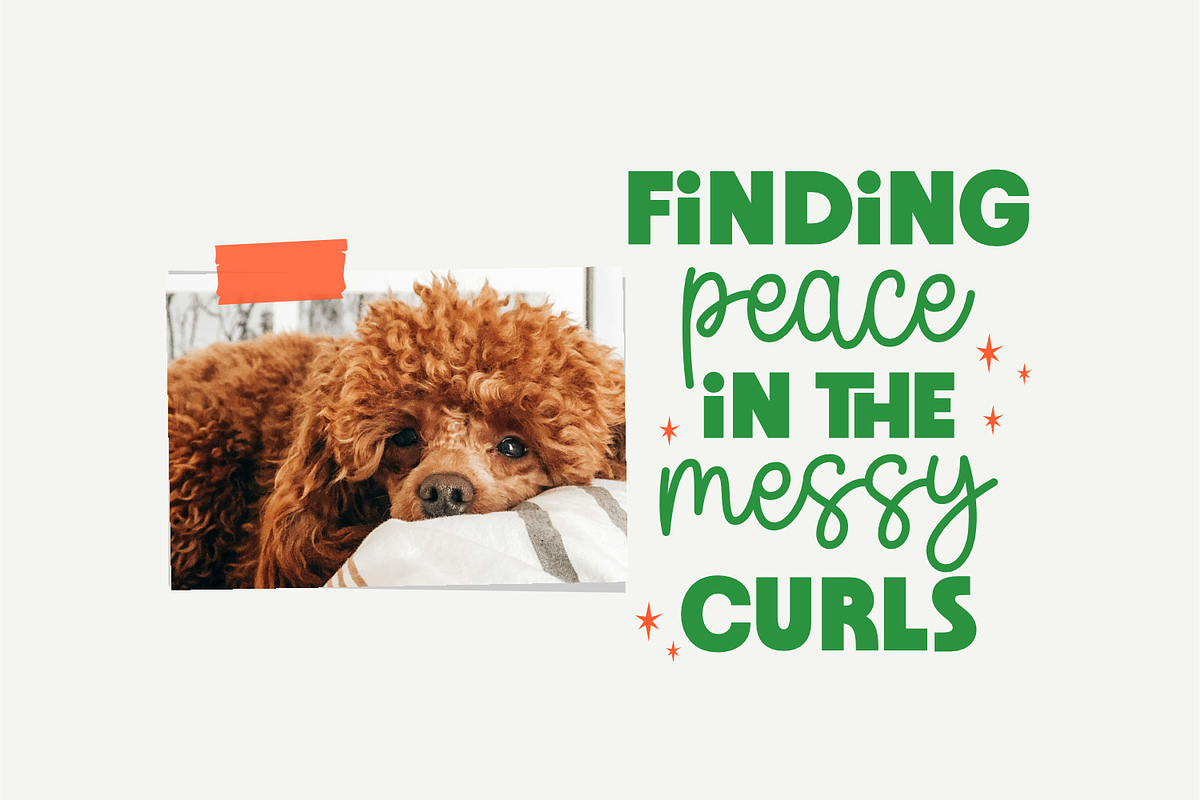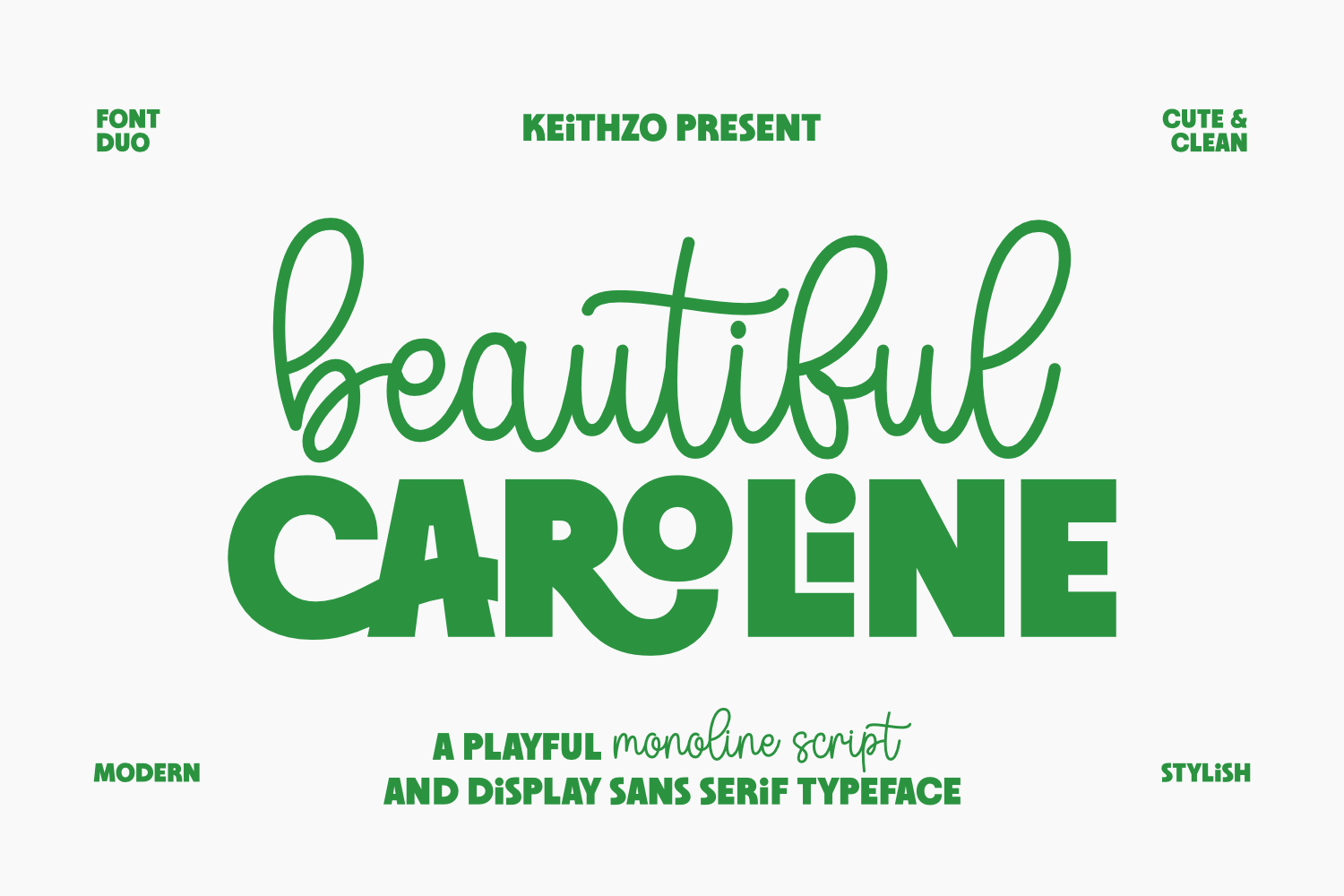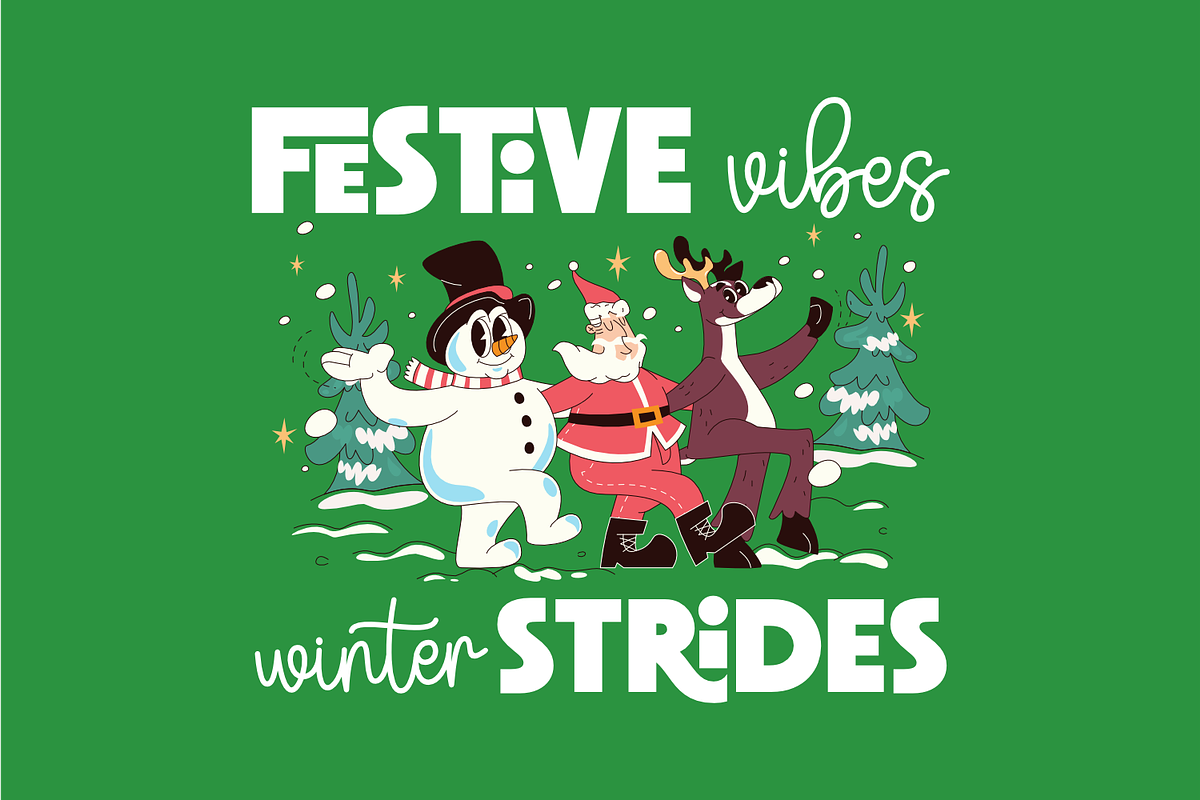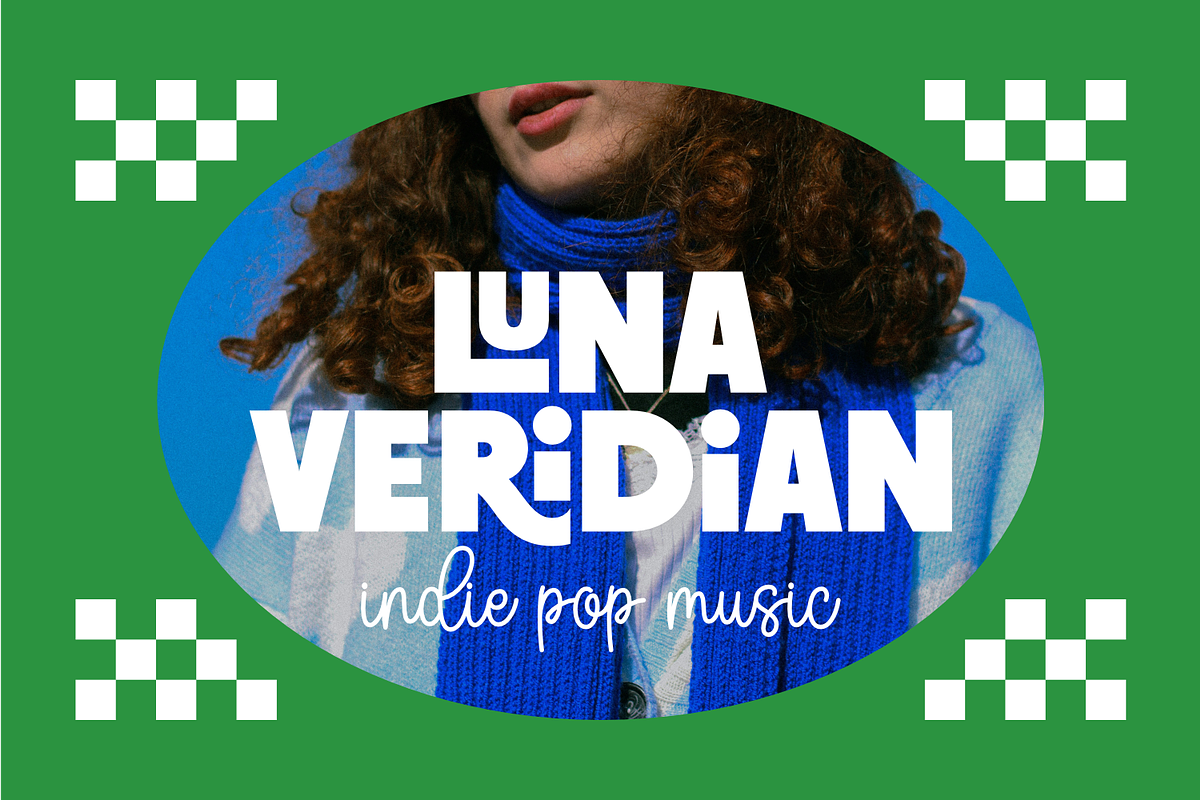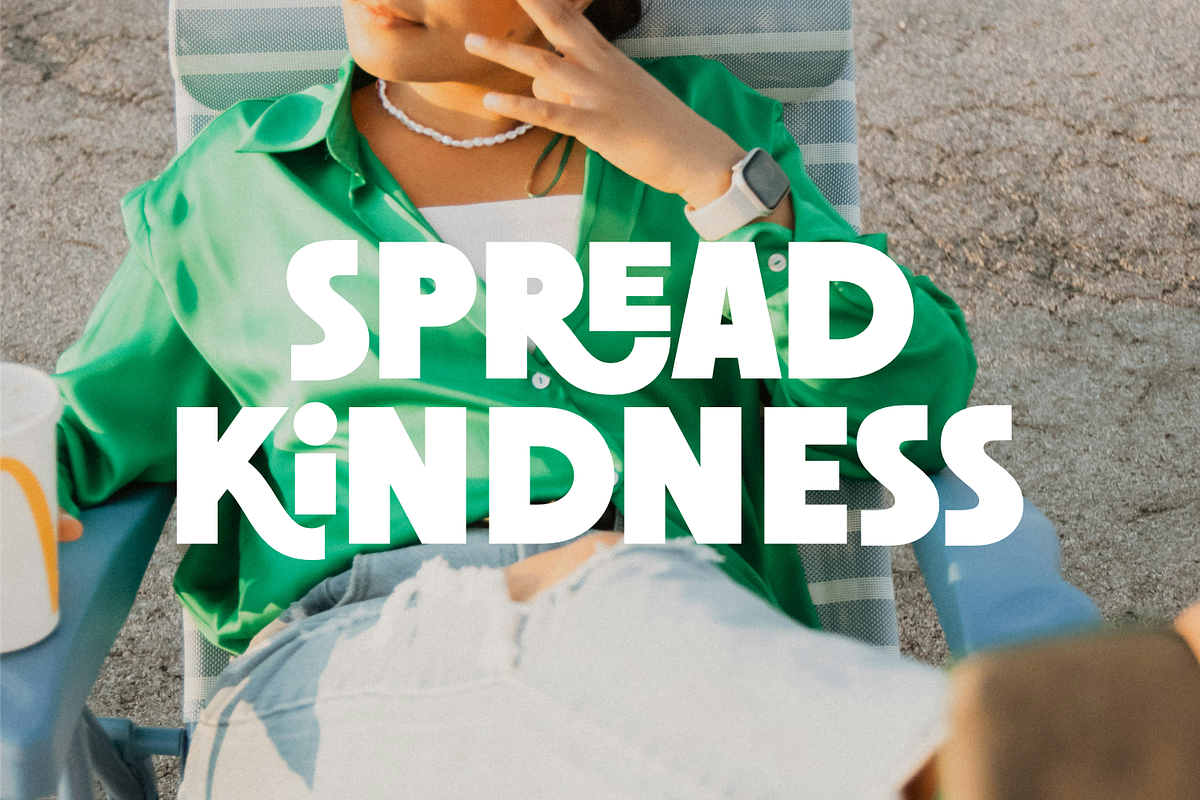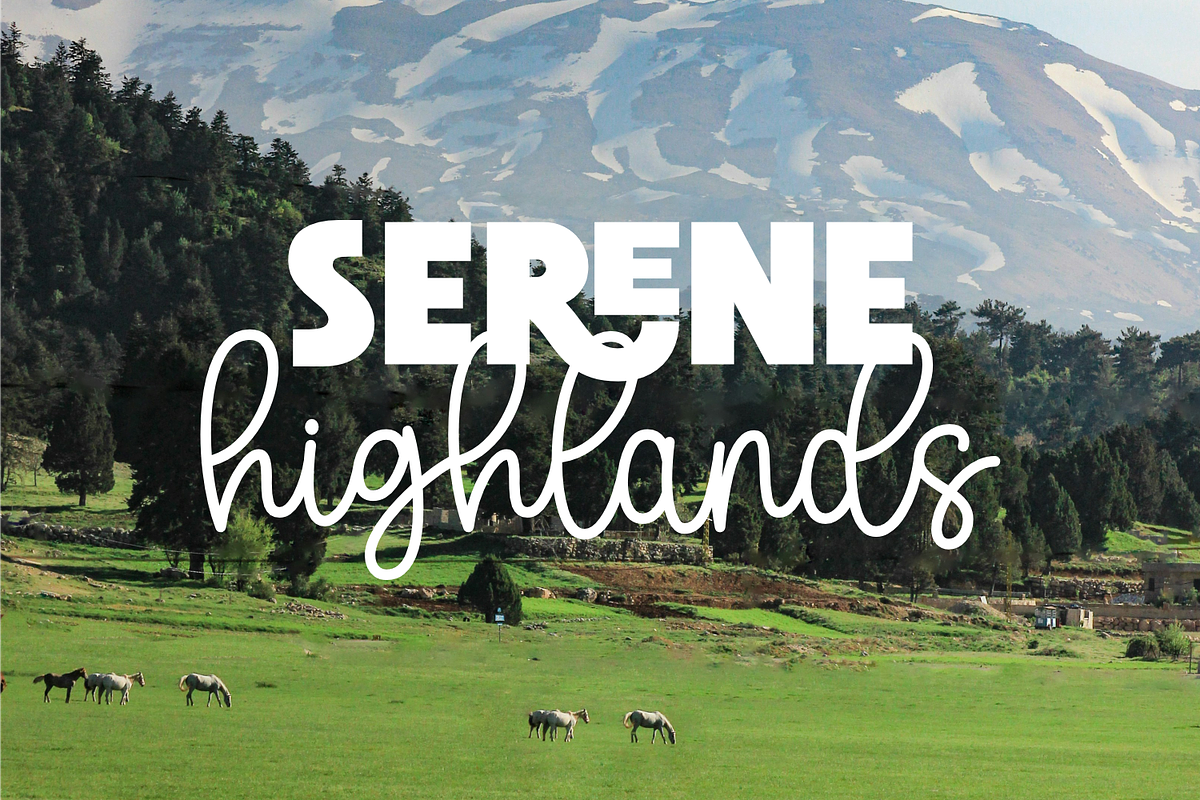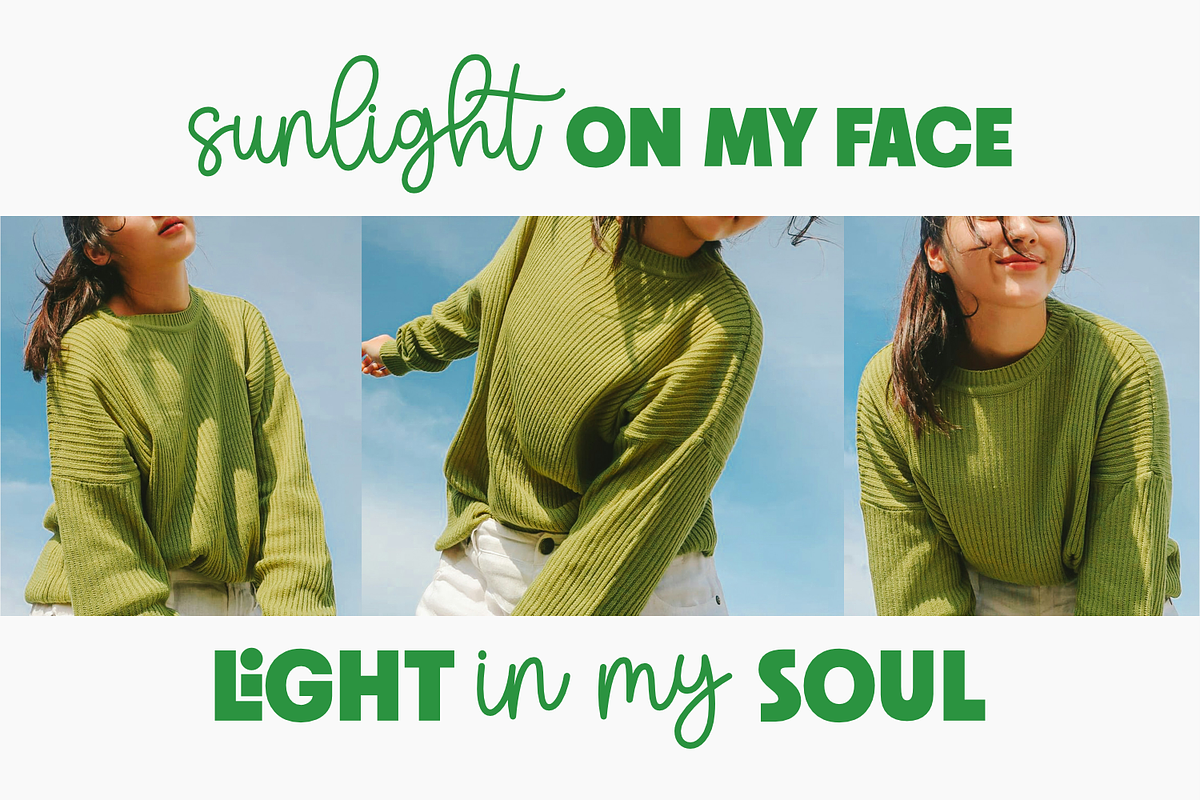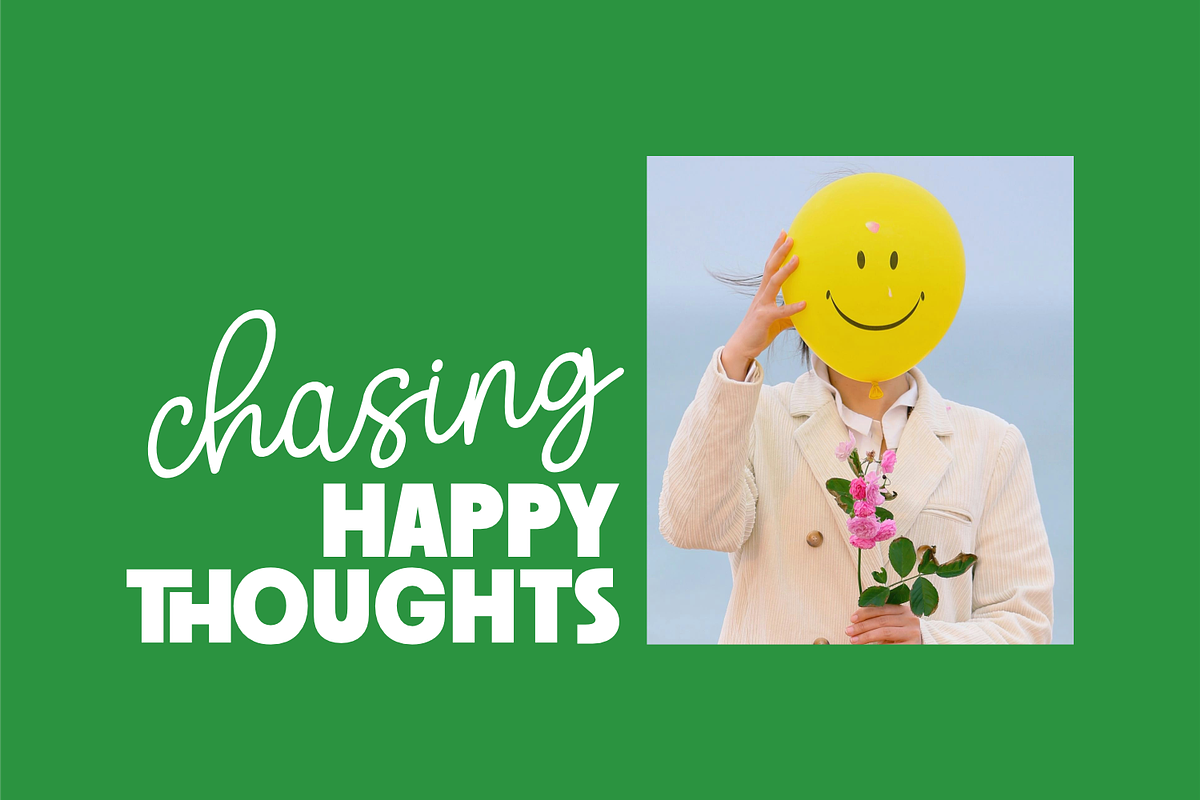
Beautiful Caroline - Font Duo
Beautiful Carolin A Harmonious Blend of Playful Sophistication Discover the perfect balance of charm and modern design with Beautiful Caroline, a premium font duo that pairs a fluid monoline script with a bold, character-filled display sans. This combination is meticulously crafted to bring a sense of effortless style and cohesive professional polish to any creative project.
The monoline script offers a handcrafted, organic feel with its consistent line weight and graceful curves, while the display sans provides a sturdy, geometric foundation with unique, playful letterforms. Together, they create a visual dialogue that is both trendy and timeless.
Beautiful Caroline is more than just a font, it’s a design solution for those who want their work to feel both friendly and fashion forward. Elevate your creative assets with a typeface duo that speaks the language of modern style.